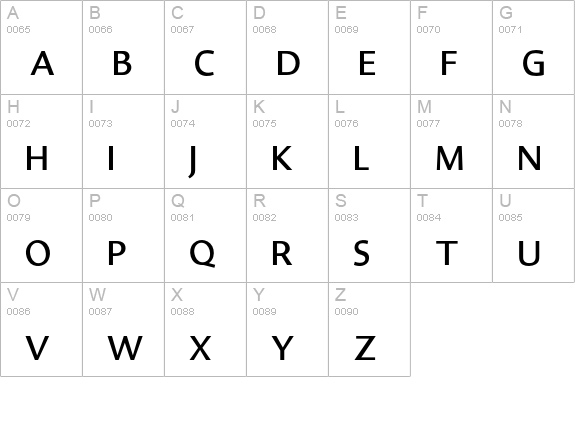
Bengasi Font Details
Bengasi font is a stylish and modern typeface that exudes elegance and sophistication. With its sleek lines and unique design, Bengasi font is perfect for adding a touch of class to any project. Whether you're designing a website, creating a logo, or working on a branding project, Bengasi font is sure to make a statement. What's even better is that Bengasi font is completely free to download! You can get your hands on this beautiful font at FontsMarket.com, where you can easily access and add it to your font collection. Don't miss out on the opportunity to enhance your designs with the stunning Bengasi font - download it today and elevate your creative projects to the next level.